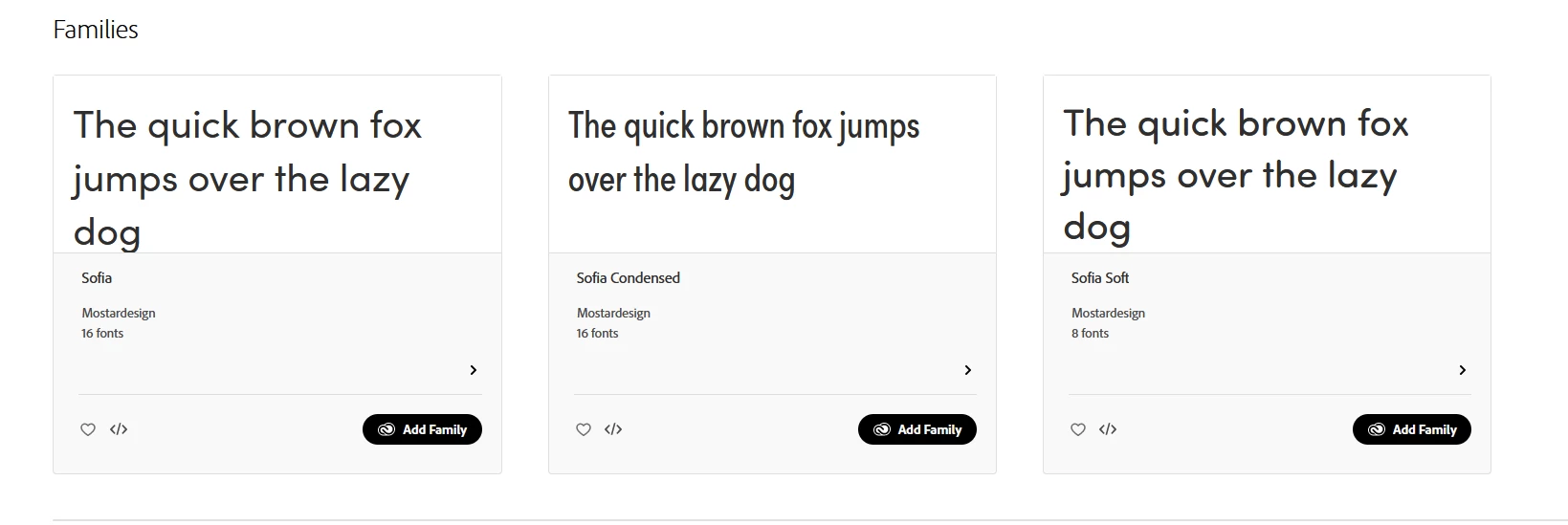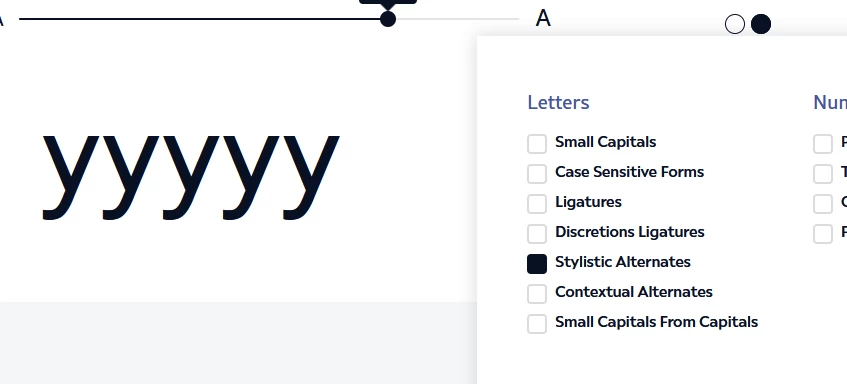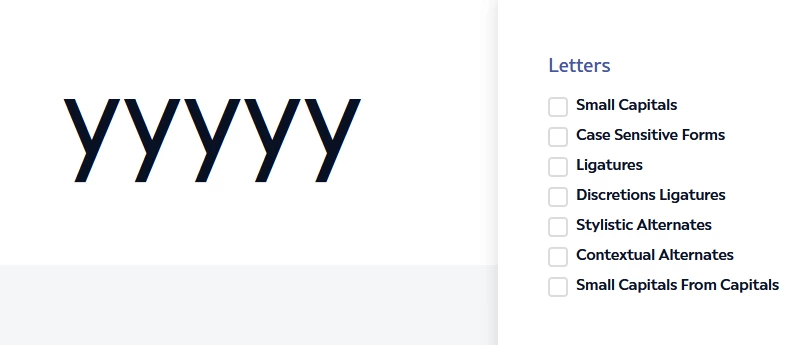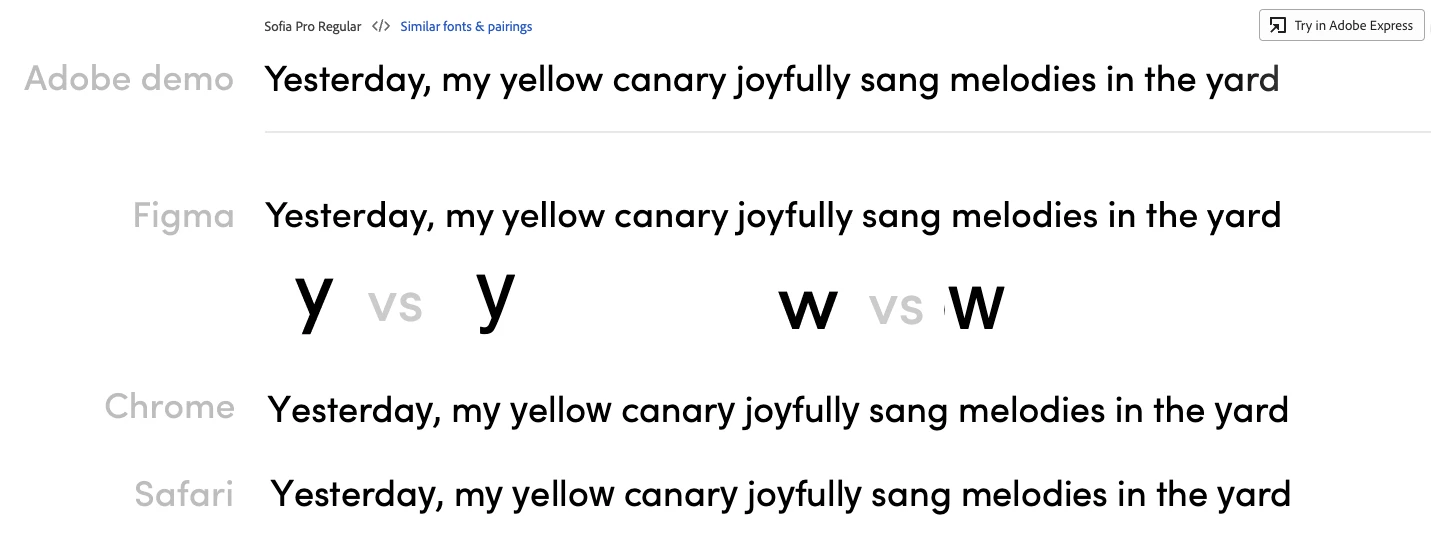
Sofia Pro, some letters are different in webfont
We need to use a Sofia Pro font in a client's project and we have noticed that at least the letters "y" and "w" look completely different when the font is used in the website. The demo on Adobe Fonts site looks OK, also the Font file we are using in Figma. Please see the attachment.
Any ideas?
I am not sure as I don't use Figma (and don't have that font installed) but would it be possible that that specific font contains alternates? As in: multiple choices for each letter such as in my screenshot below
In this example, I can have two possible O, and I can choose the one I want by using the Glyph panel in Adobe products (there might be an option in Figma as well)
Generally those varaiations include flourishes, and alternate designs, including sometimes silly ones 🙂
It could be that, or maybe a variation of the same font (extended VS regular, that kind of thing) and one isn't recognised and thus, switches automatically to the other one.
In the latter case, check if you have several variations installed and try to de-activate the unneeded one, so you know if it generates an error or not, instead of replacing.
I see 3 families here, so I would stick to activating just one for tests.
when it comes to looking for alternate letters, I can see the font designers are doing a spendid job 🙂
Alternates, ligatures, the whole shebang!
See what they show on their website
this is the y with the alternates on
and this is the standard y
so that sounds like you might need to look at Figma to make it choose one version or the other.